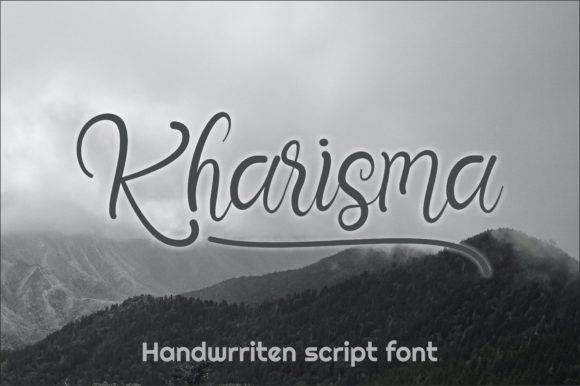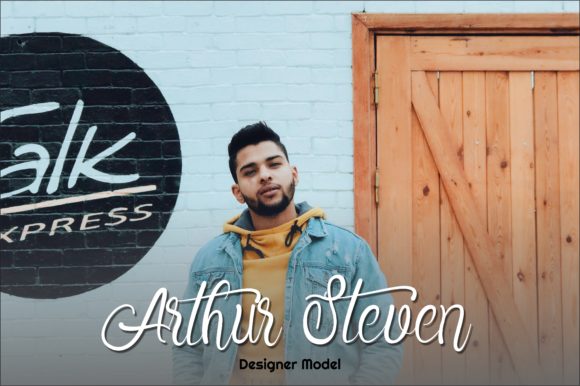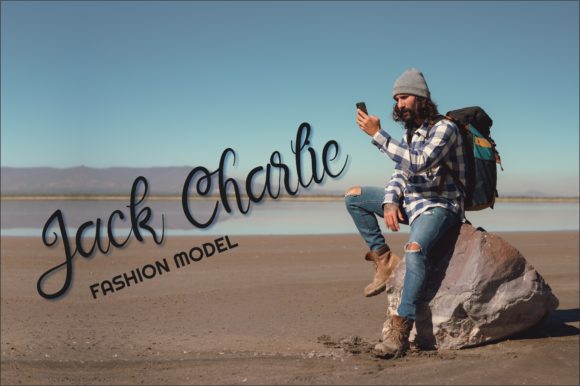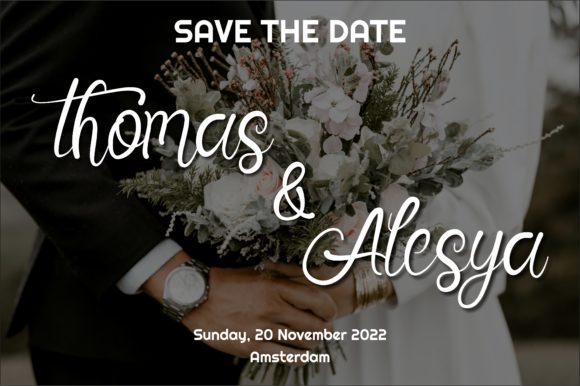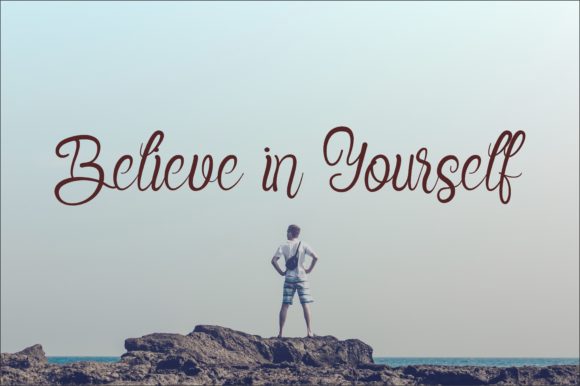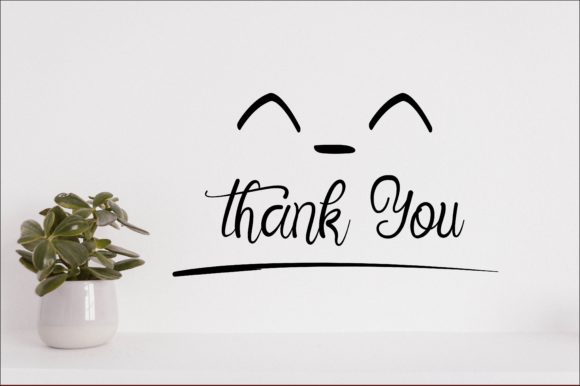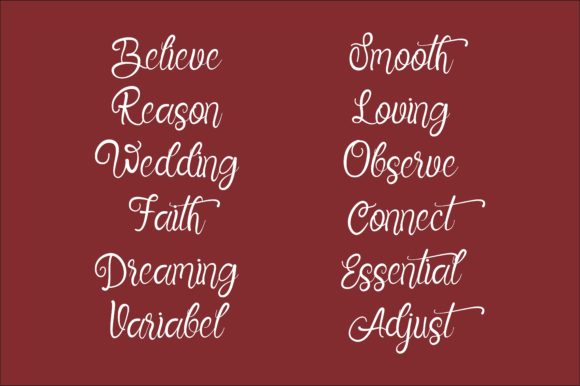
Kharisma Font
About Kharisma Font
“Kharisma” is a delightful handwritten font that has been meticulously crafted to deliver the anticipated results. This font showcases a high level of care in its design, ensuring each letter and character is thoughtfully created and harmoniously integrated to present an aesthetically pleasing appearance.
The font’s Private Use Area (PUA) encoding enables easy access to all letter variations and embellishments. This grants designers and users the freedom to explore and utilize the font’s diverse features and details, including extra ornamental letters known as swashes. By leveraging the font’s complete set of features, it becomes possible to customize your texts and achieve visually stunning outcomes.
In conclusion, the “Kharisma” handwritten font empowers users to create visually satisfying texts through its meticulous design and PUA encoding. It proves to be an appealing choice for both professional designers and font enthusiasts, offering a pathway to produce captivating texts that stand out.